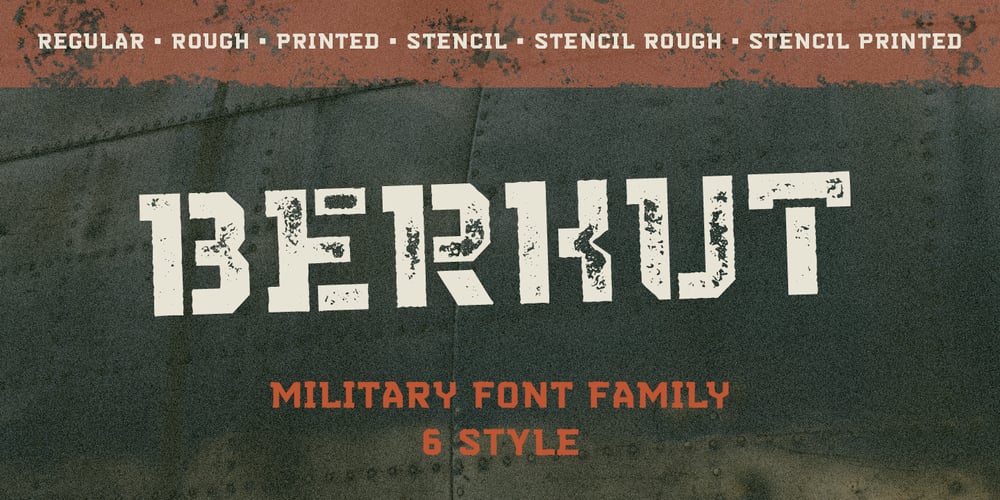
Berkut Font Family was designed by Pavel Larin and published by Larin Type Co. Berkut contains 6 styles and family package options. Berkut This is a military font family inspired by the military and aviation style, including Six styles: regular, rough, printed, stencil, stencil rough, stencil printed.This font is a wide specialization, it will be an excellent option for creating projects in the military style in both modern and vintage versions. It is great for creating logos, labels, branding projects, magazines, mugs, flyers, posters and much more, and it is also perfectly readable in the text. This font is easy to use has OpenType features.